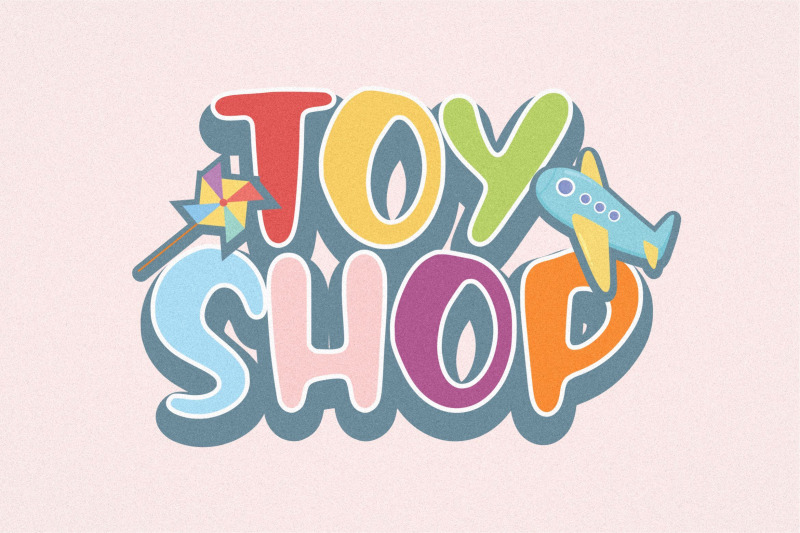
Introducing our Freebie of the week, FRANKY TOYS Font! FRANKY TOYS is a playful handbrushed font, perfect for product designs, branding projects, social media, and any designs you can think of! This font includes TTF and OTF formats with multilingual support! This playful freebie is brought to you by Balpirick Studio! Only available for a week! Don't forget to tag your creation @TheHungryJPEG on Instagram and get a chance to be featured!
FREE FRANKY TOYS | Playful Handbrushed Font